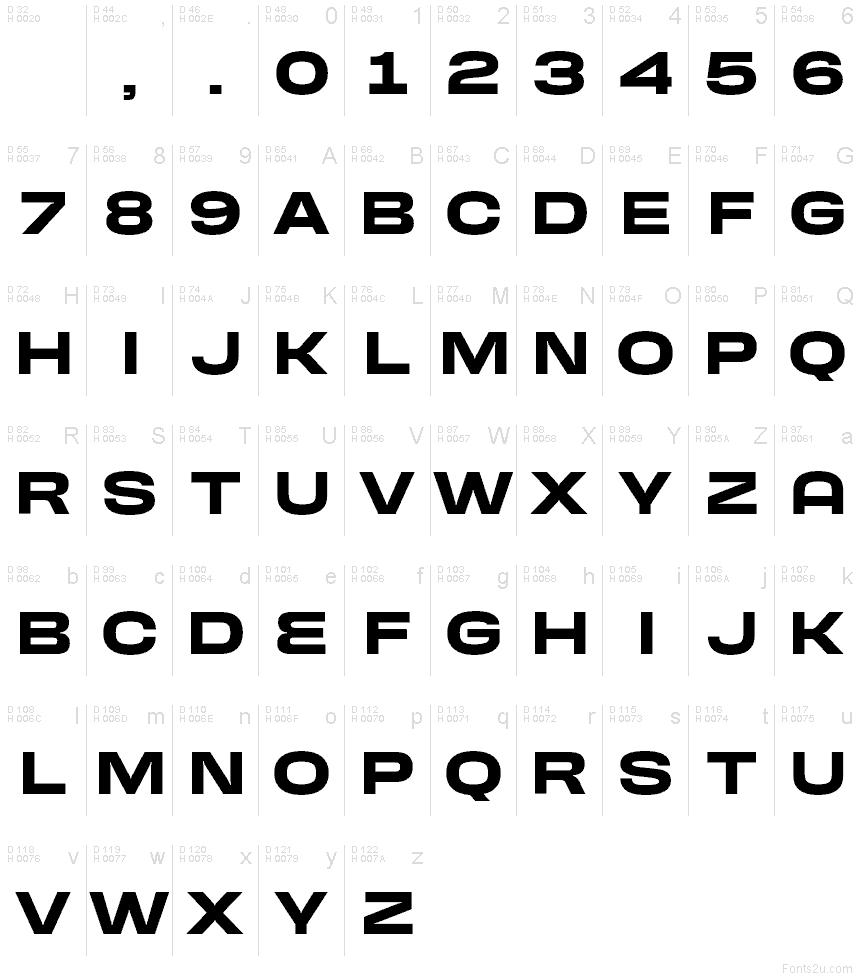
GROZEN MEDICAL DEMO Bold
Grozen Medical Bold font by Bring to Type is a free bold sans serif display font. Built within the Grozen Medical family, it carries a clean, clinical edge—crisp verticals, squared curves, and scalpel‑like incisions on diagonals that read modern without feeling cold. The strokes are sturdy and evenly weighted, giving headlines a steady, trustworthy pulse at any size.
Using Grozen Medical Bold, healthcare branding becomes clear and confident: hospital wayfinding, telemedicine dashboards, medical device packaging, pharmaceutical campaigns, wellness app headers, and safety or awareness posters all benefit from its steady rhythm and high legibility. This free font shines in uppercase with a touch of extra tracking; pair it with a humanist text face for body copy to keep the tone warm and approachable.